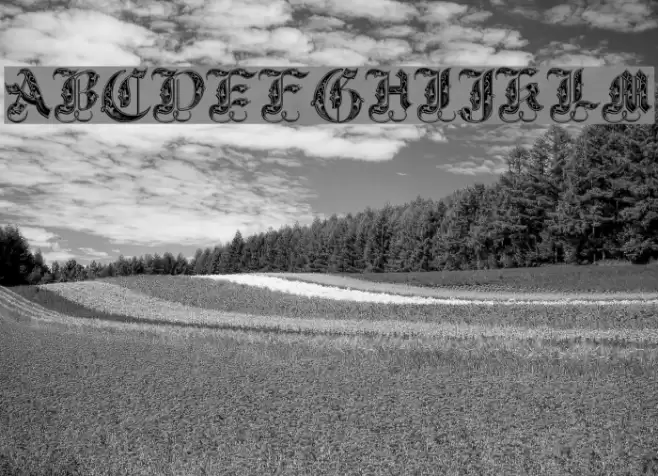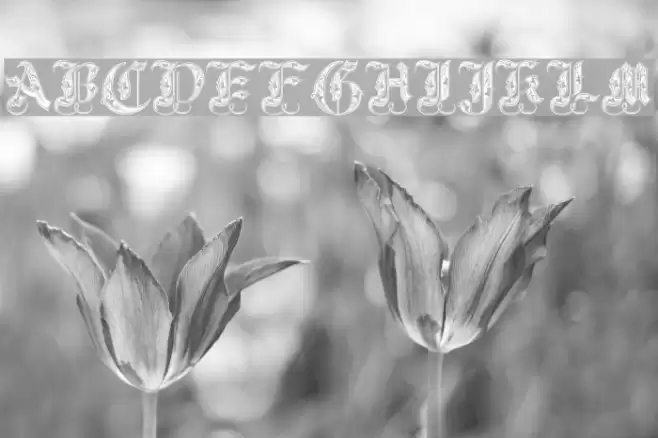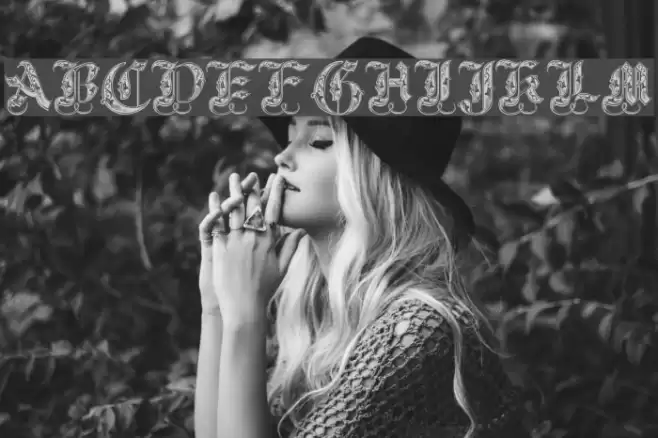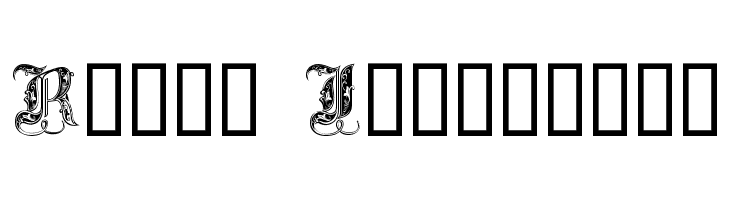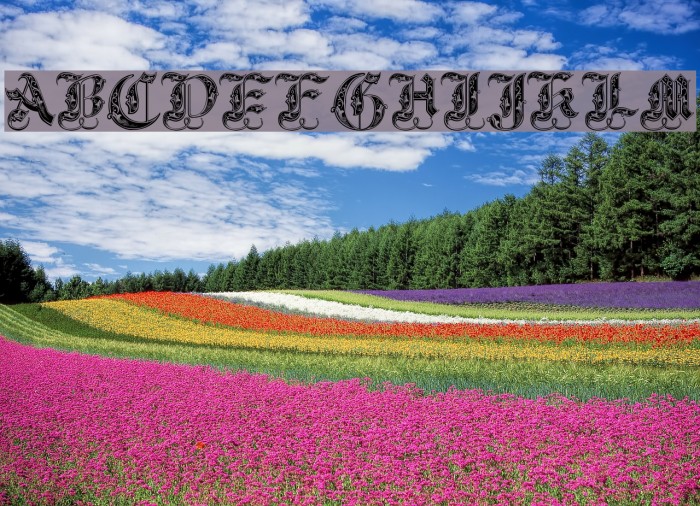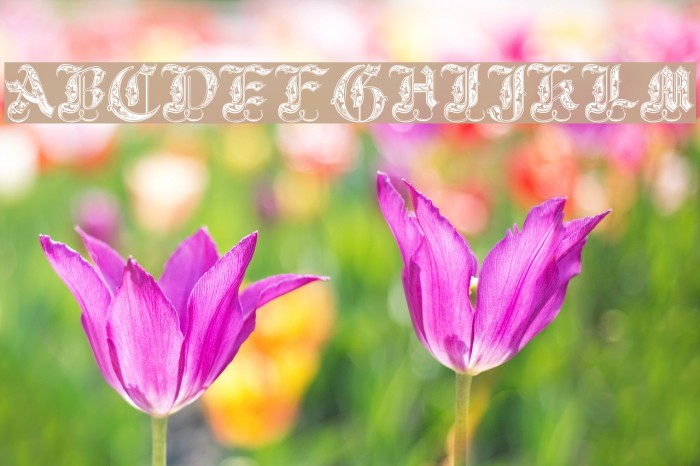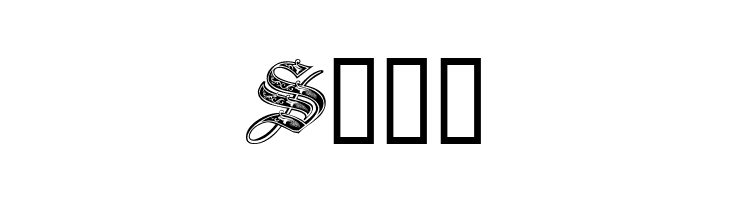
Royal Initialen Font
Royal Initialen Description
This font exhibits a highly decorative and ornate style, reminiscent of traditional calligraphy with intricate flourishes and embellishments. The uppercase letters are particularly elaborate, featuring bold strokes and detailed serifs that give each character a regal and majestic appearance. The design is heavily influenced by historical typography, often seen in medieval manuscripts or royal documents. The overall aesthetic is both classic and sophisticated, making it suitable for projects that require a touch of elegance and grandeur. The font's intricate details and bold presence make it ideal for use in large formats where its unique characteristics can be fully appreciated.
An ornate and decorative font with intricate flourishes, ideal for regal and elegant designs from Gothic fonts.
- Proposed Projects: Perfect for wedding invitations, certificates, book covers, and branding that requires a touch of elegance and tradition.
- Overall Style: Classic